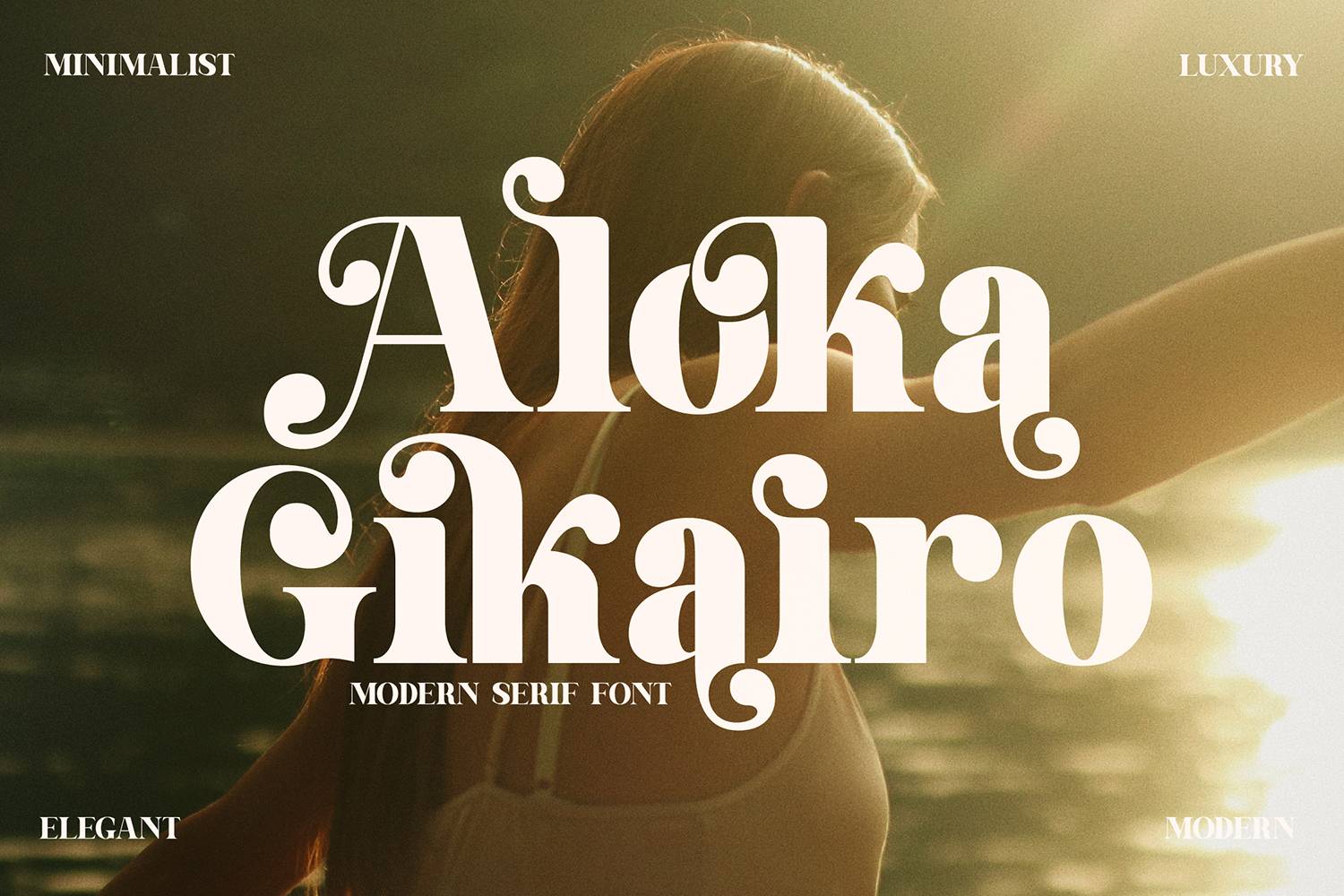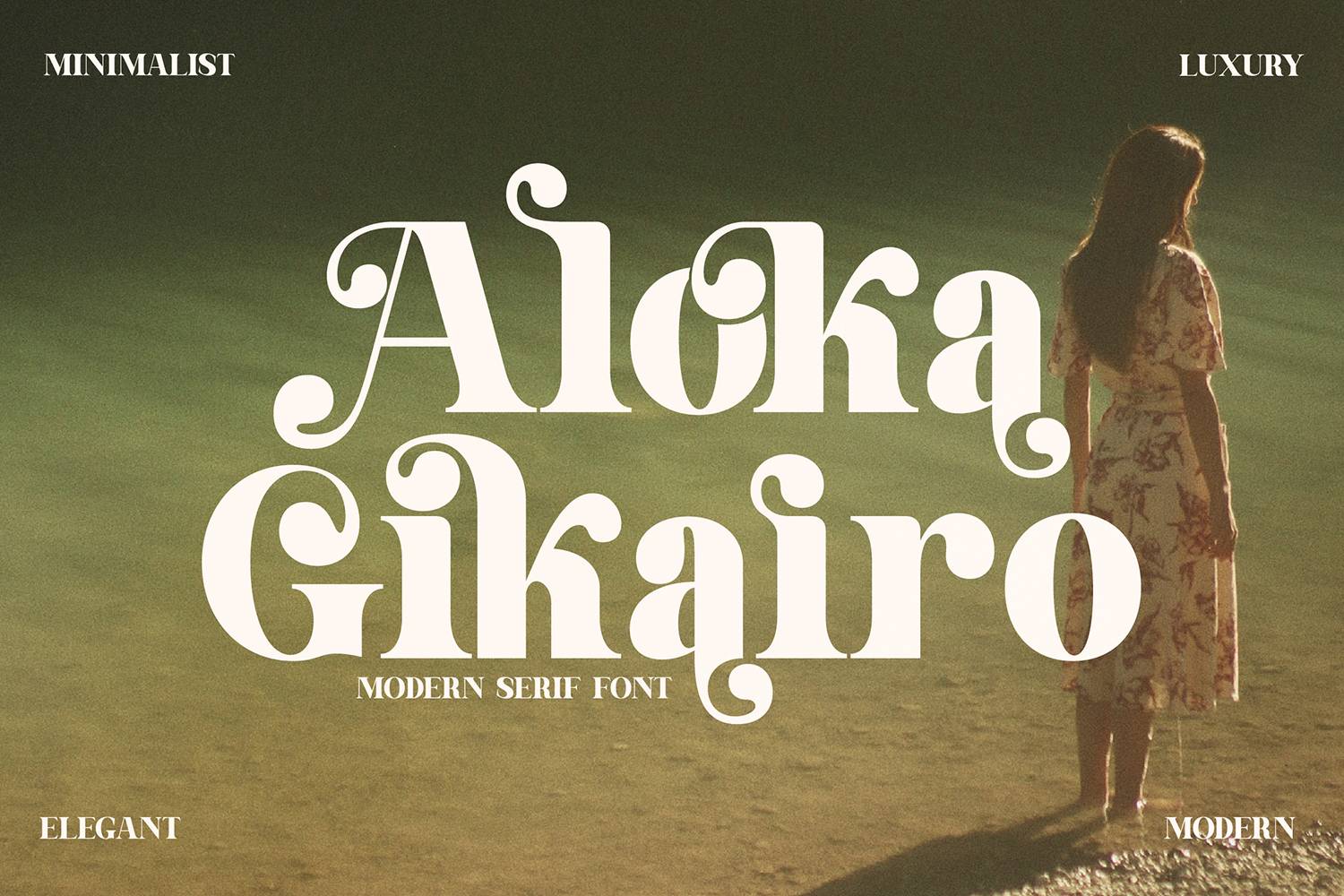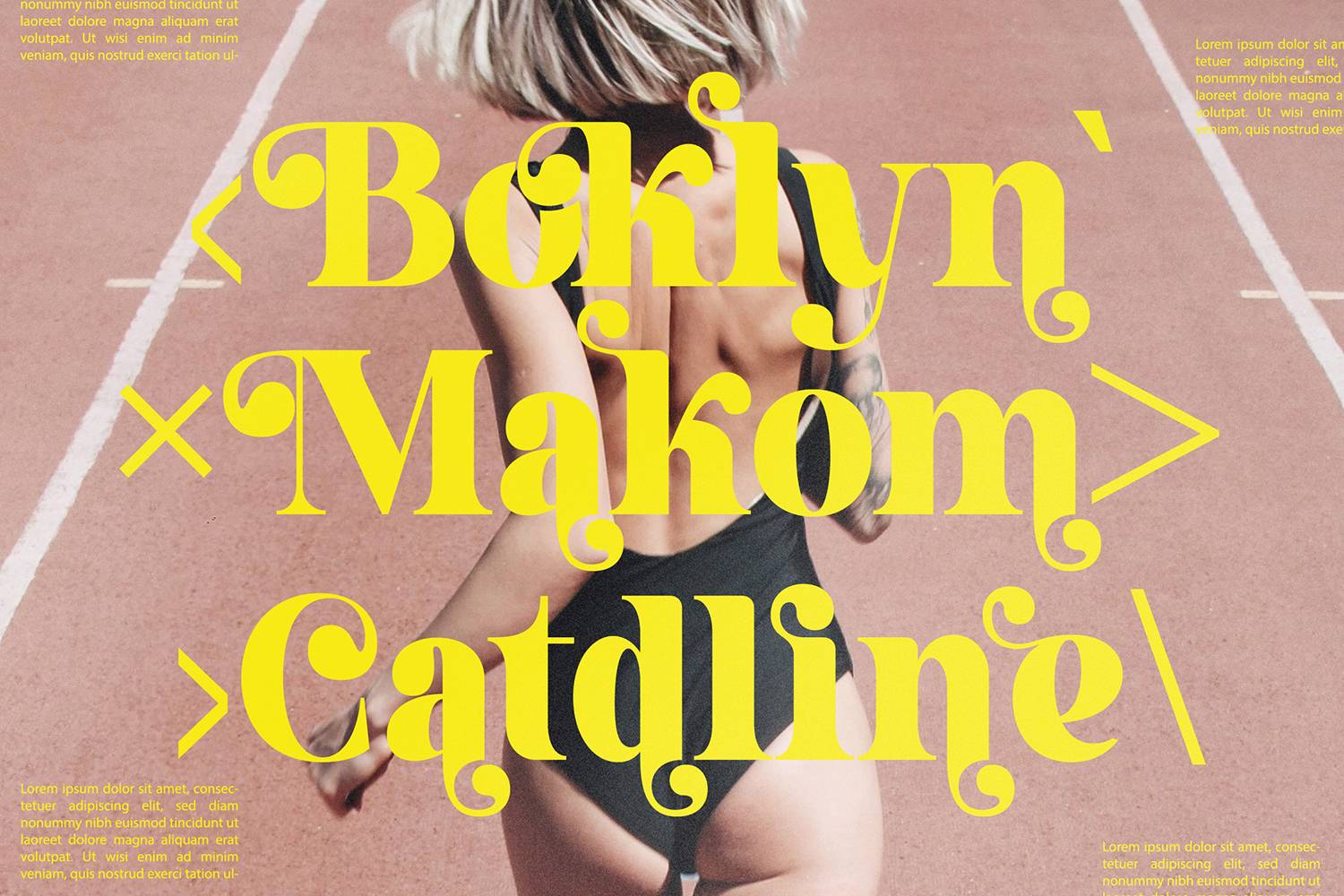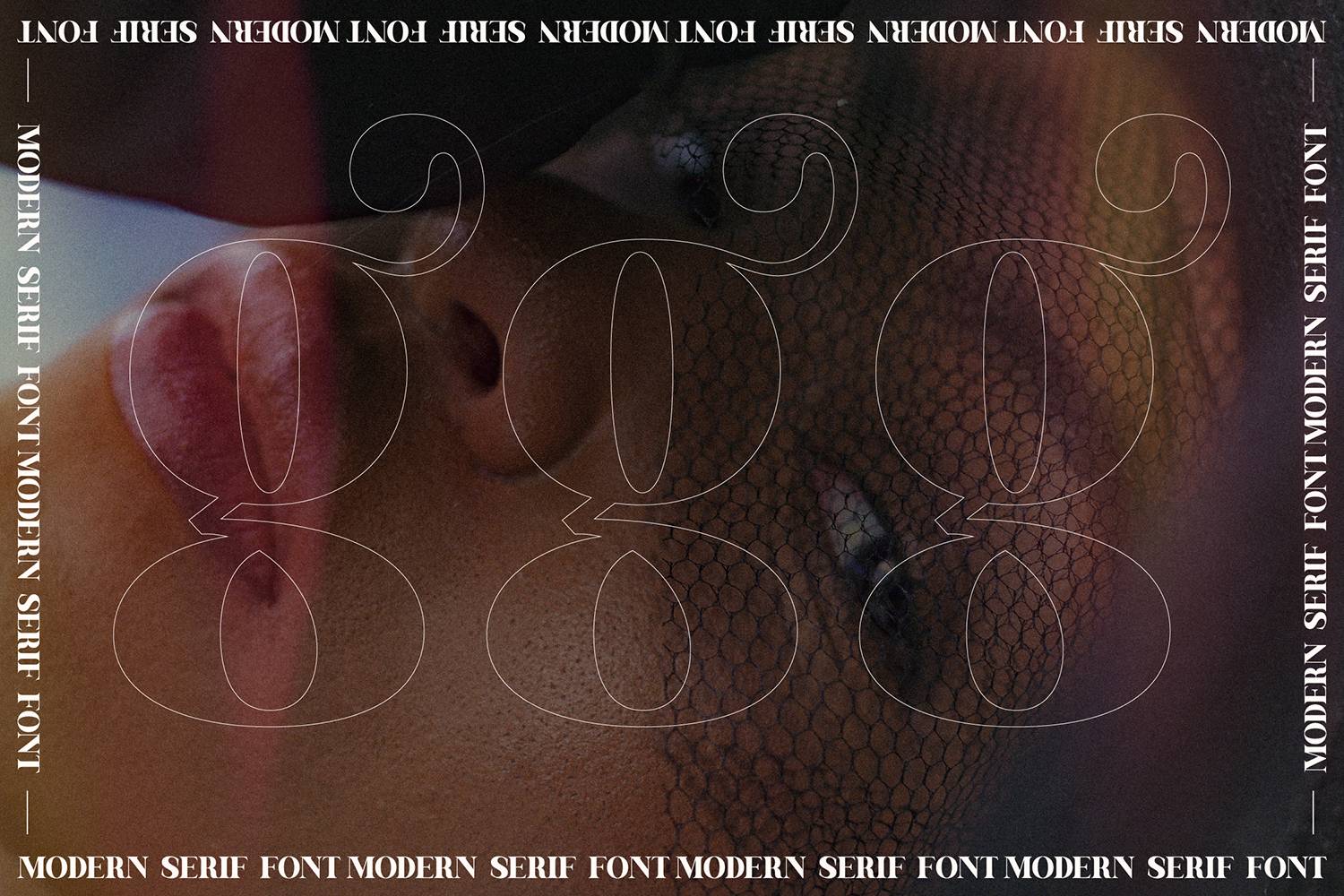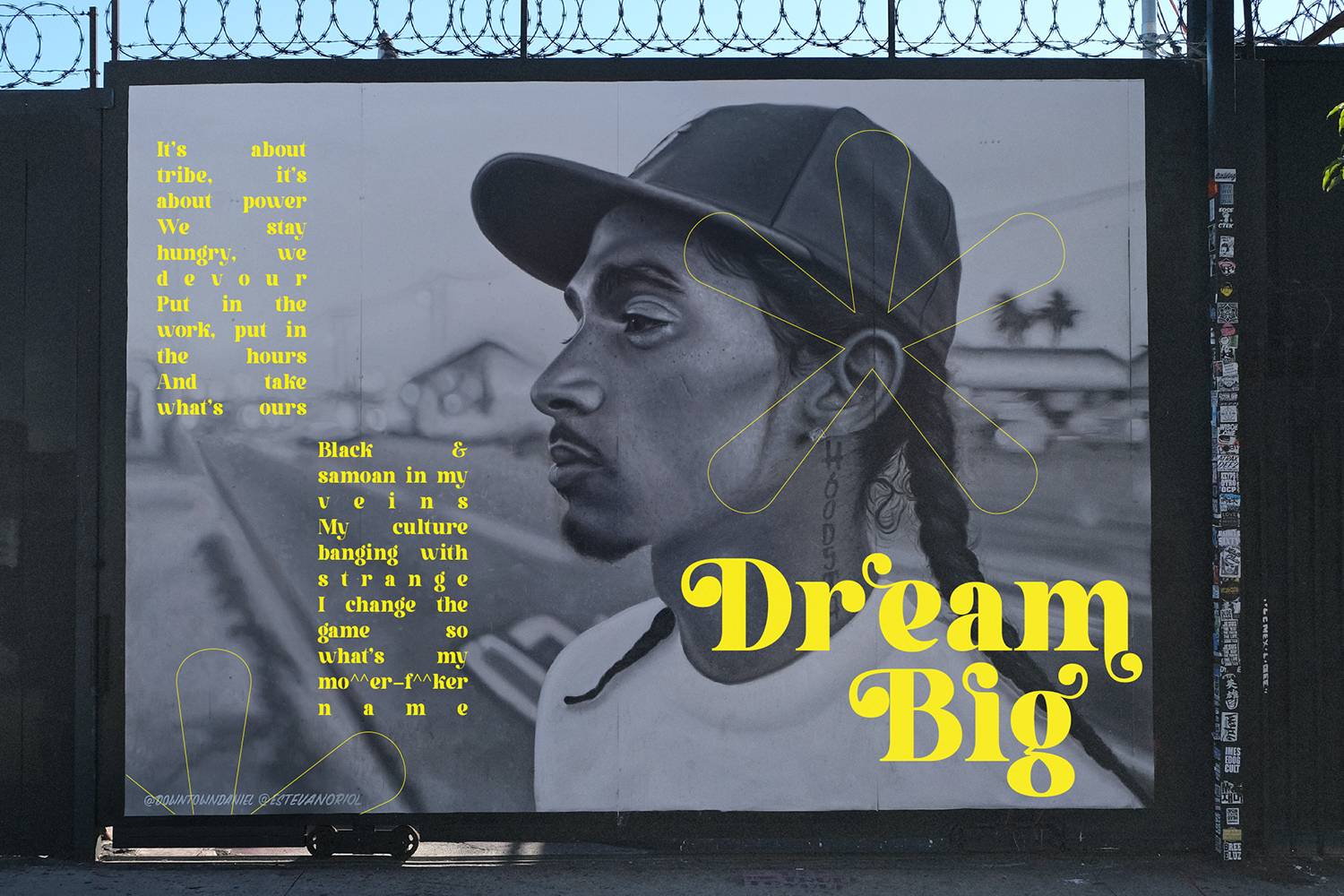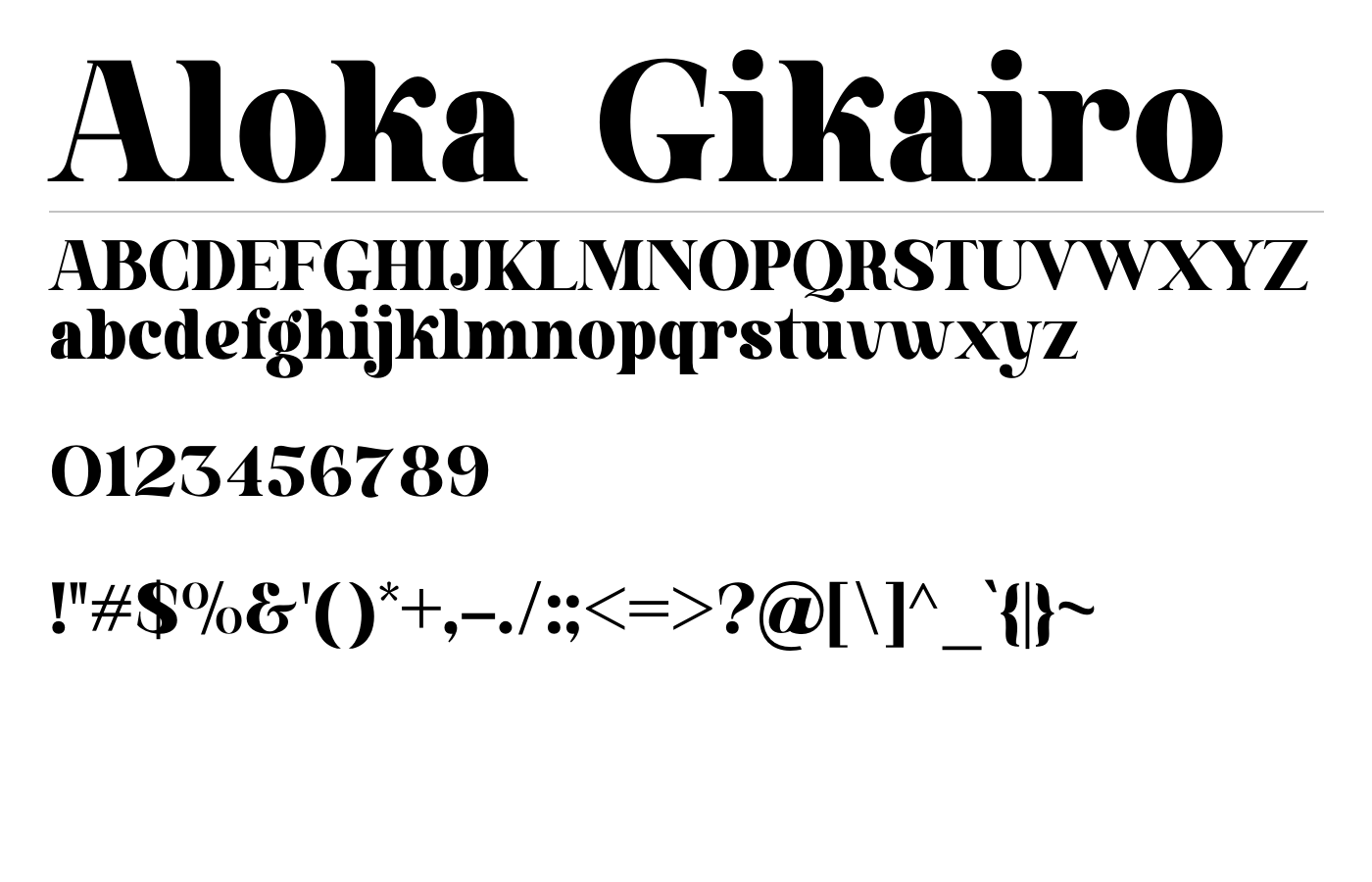
Aloka Gikairo is a bold, modern serif font with strong contrast between thick and thin strokes, featuring elegant bracketed serifs and distinctive curled terminals that add a stylish flair. With its high x-height and refined details, this font combines classic sophistication with contemporary impact, making it ideal for luxury branding, editorial headlines, and striking logos that need a confident yet elegant presence. Its balanced letterforms and clear numerals ensure readability while conveying a sense of timeless refinement.
Aloka Gikairo Font
About Aloka Gikairo Font